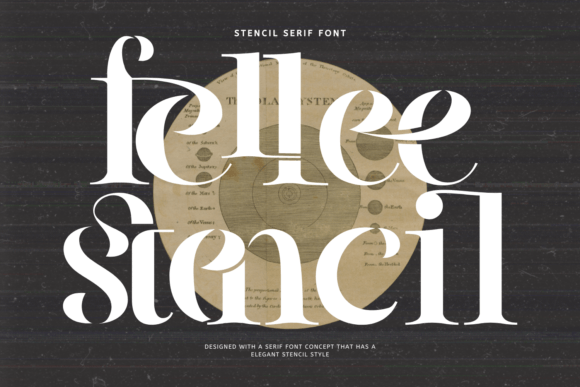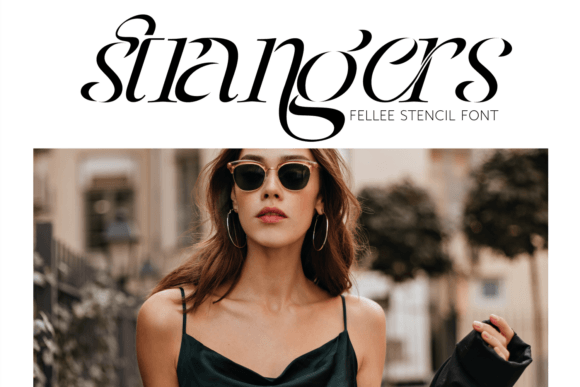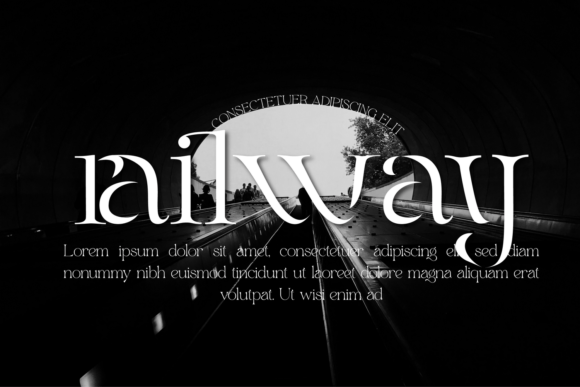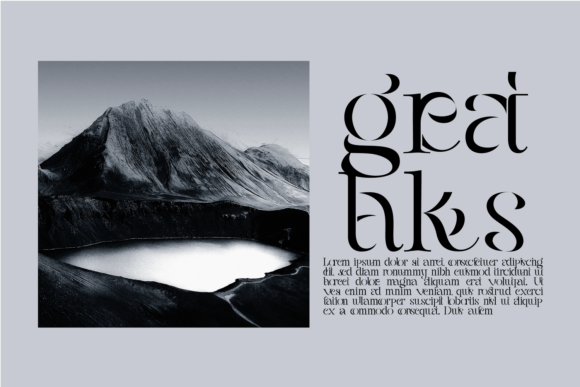
Fellee Stencil Font
About the Fellee Stencil Font
Experience the unique personality of Fellee Stencil Font, a font designed for impact. Fellee Stencil Font is designed with a serif font concept that has an elegant stencil style. Irregular dynamic shapes but impressively regular and unique make the font different and steal attention.
This typeface is perfect for an elegant & luxurious logo, classy editorial design, women’s magazine, fashion brand, cosmetic brand, fashion promotion, modern advertising design, invitation card, art quote, home decoration, book/cover titles, special events, and much more.
Fellee Stencil’s elegant yet bold personality makes it ideal for headlines, logos, and short impactful text within branding materials, posters, and invitations. Its distinctive style commands attention, making it unsuitable for body text or UI elements where readability over long passages is crucial.
Consider pairing Fellee Stencil with a clean sans-serif like Montserrat for a modern contrast, or a delicate script font such as Great Vibes for a touch of vintage luxury. For a more classic feel, a neutral serif like Garamond can provide a sophisticated balance.
The font projects a sophisticated boldness, perfect for brands aiming for a high-end, attention-grabbing aesthetic within fashion, cosmetics, or luxury goods. Avoid using it in contexts requiring extensive text blocks.